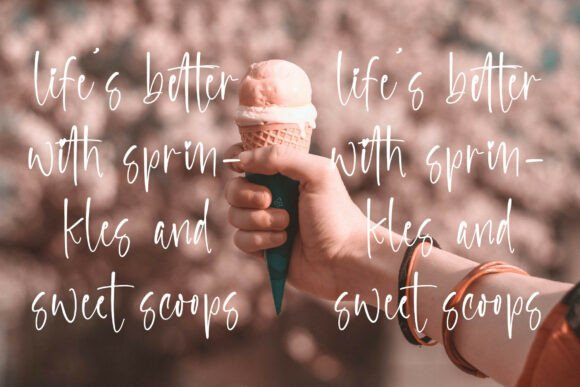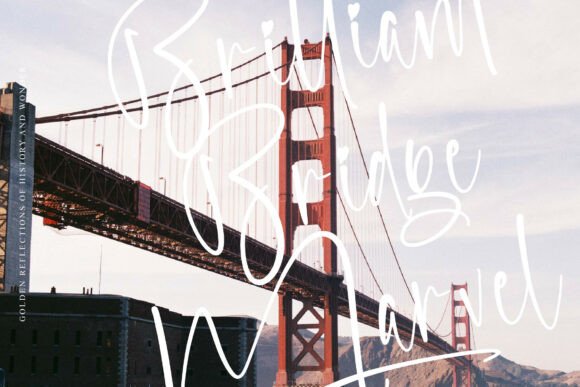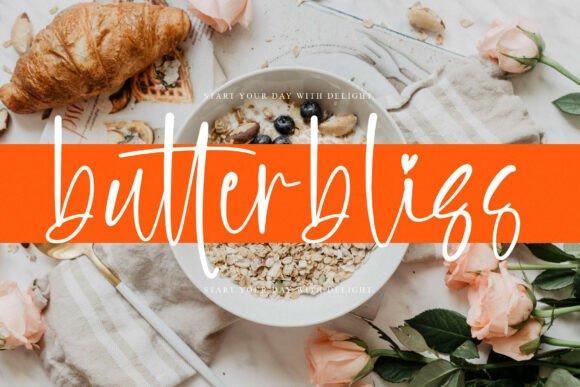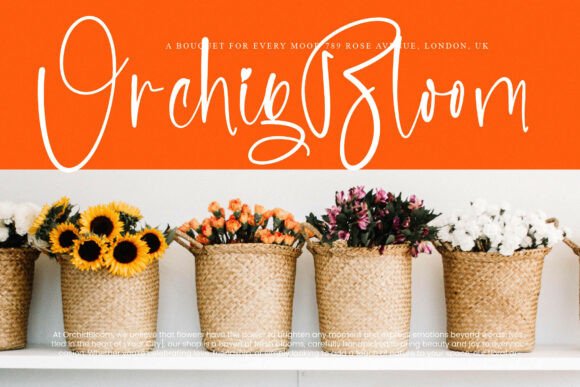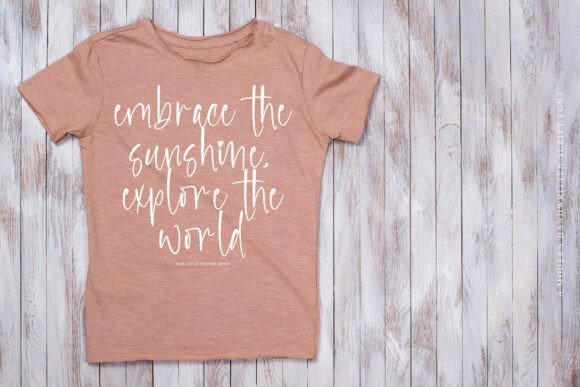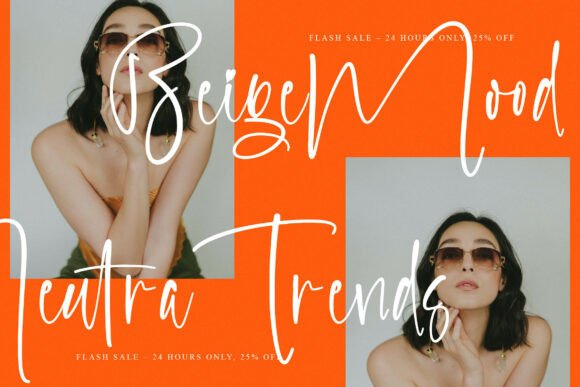
Adding Whimsy to Your Designs
As creatives, we’ve all had those moments where we stumble upon a font that sparks joy and inspires our next project. For some, it’s the perfect sans-serif for a modern logo; for others, it’s a classic serif for a timeless publication. For me, it’s the quirky charm of a handwritten script that brings a smile to my face. And that’s exactly what I found when I discovered the Blisk Orage Font.
This delightful script font is more than just a pretty face – it’s a valuable tool for designers looking to add a playful twist to their designs. With its charming swashes and heart-shaped details, the Blisk Orage Font is perfect for personal branding, packaging, product labels, and social media posts.
Blisk Orage Font Key Features
- Unique Characteristics: Blisk Orage Font features a unique blend of modern and vintage elements, with a distinctive “orange” hue that adds a touch of warmth and sophistication.
- Language Support: Supports multiple languages, including Latin, Cyrillic, and Greek alphabets.
- Font Style: Available in 3 font styles: Regular, Italic, and Bold.
Blisk Orage Font Review
As a designer, I’ve had the chance to work with the Blisk Orage Font, and I must say it’s a unique and stylish choice. Here are some things that stand out ✨:
- Uniqueness: The Blisk Orage Font has a distinctive, hand-drawn feel that can add a touch of personality to your designs.
- Legibility: While it may not be the most legible font, it’s still easy to read at larger font sizes, making it suitable for headings and titles.
- Stylish: The font’s quirky design elements make it perfect for creative projects, like branding, advertising, or editorial content.
However, there are some limitations to consider ⚠️:
- Readability at small sizes: The font can become difficult to read when used at smaller font sizes, which may limit its use in body text.
- Lack of versatility: The font’s unique design may not be suitable for all types of projects or audiences, which can limit its overall usability.
Overall, the Blisk Orage Font is a great choice for designers who want to add a touch of personality to their projects. While it may not be the most versatile font, it’s perfect for creative projects where a unique style is key.
The Blisk Orage Font is ideal for creating modern and edgy designs in Canva.
The Blisk Orage Font is perfect for creating unique and eye-catching designs in Adobe Photoshop and Illustrator.
The Blisk Orage Font is great for adding a touch of modernity to your PowerPoint presentations and Word documents.
The Blisk Orage Font is ideal for:
1. Creating modern and edgy designs.
2. Adding a touch of sophistication to presentations and documents.
3. Making a statement with bold and eye-catching typography.
Tips for Getting the Most Out of Blisk Orage Font
1. Experiment with different font sizes and styles to create a unique look.
Alternatives to Blisk Orage Font for Designers
Montserrat is a sans-serif font designed for urban environments. It’s perfect for use in headings, titles, and short paragraphs where you want to convey a sense of modernity and sophistication. Montserrat is a bit more geometric and structured compared to Blisk Orage Font, making it a great choice for digital products and applications.
Comparison: Montserrat has a more uniform and modern feel, whereas Blisk Orage Font has a more playful and handwritten look. Use Montserrat when you want a clean and professional look, and Blisk Orage Font when you want to add a touch of whimsy and personality.
Great Vibes is a script font that’s perfect for use in titles, headings, and short paragraphs where you want to add a touch of elegance and sophistication. Great Vibes has a more organic and flowing feel compared to Blisk Orage Font, making it a great choice for creative and artistic projects.
Comparison: Great Vibes has a more refined and elegant feel, whereas Blisk Orage Font has a more playful and casual look. Use Great Vibes when you want to add a touch of sophistication and elegance, and Blisk Orage Font when you want to add a touch of playfulness and personality.
What is the recommended font size and line height for optimal readability with Blisk Orage?
The recommended font size for Blisk Orage is between 12-14 points, with a line height of at least 1.5 times the font size. This will ensure optimal readability and a clean, professional appearance. You can adjust these values to suit your specific design needs and preferences.